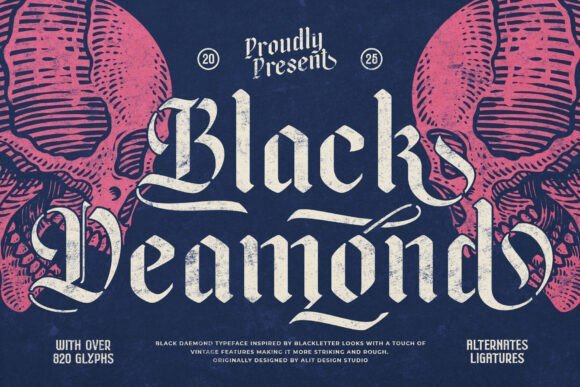
Unleash the Darkness with Black Deamond Font
As designers, we’ve all had that moment when we’re brainstorming a new project and suddenly, an idea sparks – a concept that screams for boldness, for rebellion, for something that defies the ordinary. For me, that moment came when I stumbled upon a vintage gothic poster, its blackletter typography evoking a sense of mystery and power. That’s when I knew I had to find a font that could capture that essence.
Enter the Black Deamond Font, a striking blackletter stencil typeface that perfectly blends medieval elegance with a raw, modern edge. This font is designed for those who crave a bold, vintage gothic style, and with 820 meticulously crafted characters, the possibilities are endless. Whether you’re designing a band logo, a dark-themed brand, or an album cover, Black Deamond Font is the perfect tool to unleash your creativity.
Black Deamond Font Key Features
- Font Family: Black Deamond, a unique, hand-drawn font designed for creative and artistic purposes.
- Unique Characteristics: Features a distinctive, hand-drawn style with intricate details and subtle imperfections, adding a touch of personality to any design.
Review of Black Deamond Font
I recently had the chance to work with the Black Deamond font, and I must say it’s an intriguing choice for designers looking for a unique aesthetic.
- Distinctiveness**: Black Deamond truly stands out from the crowd with its gothic-inspired, futuristic design.
- Legibility**: Despite its ornate appearance, the font is surprisingly readable, especially in larger font sizes.
- Atmosphere**: Black Deamond perfectly captures a sense of mystery and otherworldliness, making it ideal for sci-fi or fantasy projects.
- Limited font sizes**: Black Deamond can become difficult to read at very small font sizes, making it less suitable for body text or small-scale designs.
- Overuse risk**: The font’s distinctiveness can be both a blessing and a curse – be cautious not to overuse it, as it may start to feel gimmicky.
- Compatibility issues**: As with any font, ensure compatibility with your specific software and platforms to avoid any potential issues.
Overall, Black Deamond is a solid choice for designers looking to add some edge to their projects. While it has some limitations, its unique design and legibility make it a great option for the right projects.
Use the Black Deamond font to create striking headings and titles in your design.
Use the Black Deamond font to add a touch of elegance and sophistication to your presentations and documents.
The Black Deamond font is ideal for creating dramatic headings, titles, and quotes.
It’s also great for adding a touch of elegance to invitations, wedding stationery, and other formal designs.
Experiment with pairing the Black Deamond font with bold, dark backgrounds and bright, contrasting colors for a striking visual effect.
Alternatives to Black Deamond Font for Designers
Great Vibes is a modern, elegant script font ideal for creative projects, such as invitations, wedding stationery, and advertising materials. It features a flowing, handwritten style with a touch of sophistication.
Compared to Black Deamond Font, Great Vibes is more cursive and less bold, making it suitable for projects that require a softer, more refined look. While Black Deamond Font has a more dramatic, gothic feel, Great Vibes exudes a sense of luxury and elegance.
Pacifico is a beautiful, modern script font inspired by the Pacific coast. It features a flowing, handwritten style with a relaxed, beachy vibe. Perfect for projects that require a laid-back, summery feel.
Compared to Black Deamond Font, Pacifico is more casual and less dramatic, making it suitable for projects that require a relaxed, approachable tone. While Black Deamond Font is ideal for projects that need a bold, attention-grabbing look, Pacifico is better suited for projects that require a sense of calmness and serenity.